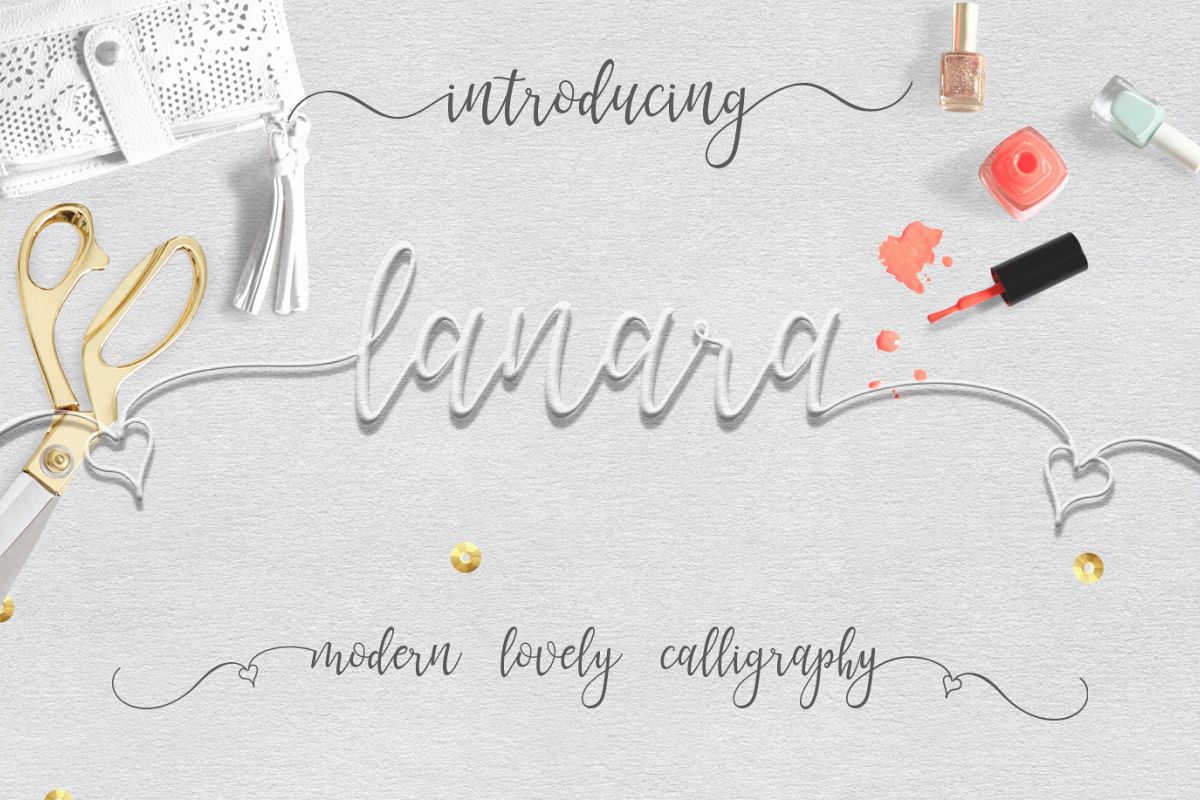
Lanara Script
lanara script pro
Lanara Script font that is made with love, lanara script is suitable for branding, invitation, t-shirt, mailing, and and other suitable design you want.
Lanara Script features with :
• Basic Glyphs, Numerals, Symbol and punctuation
• Stylistic Sets 1 - 10
• Ligatures and Discretionary Ligatures
• Swash